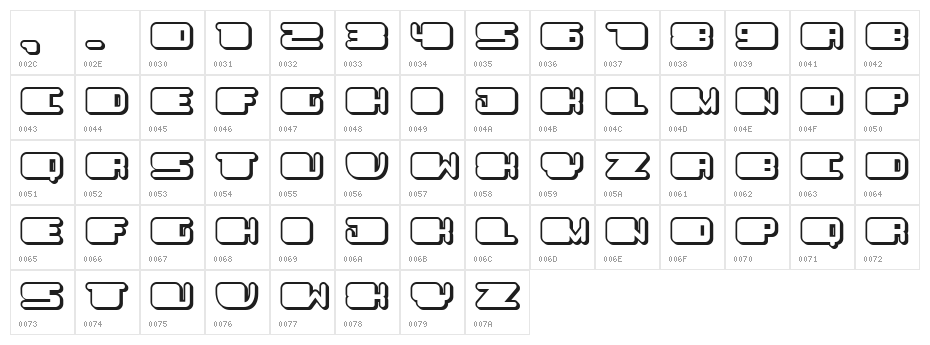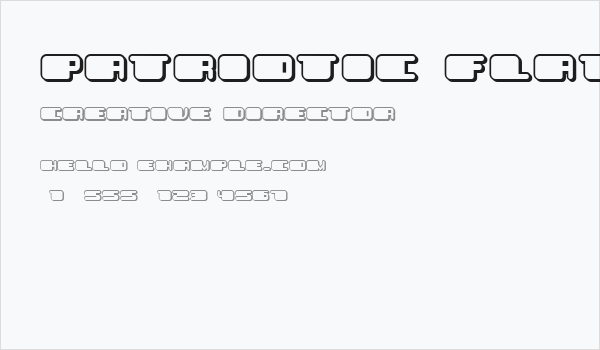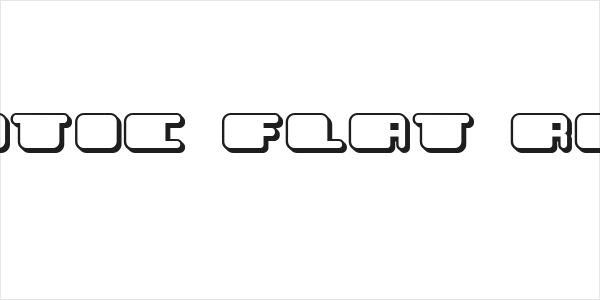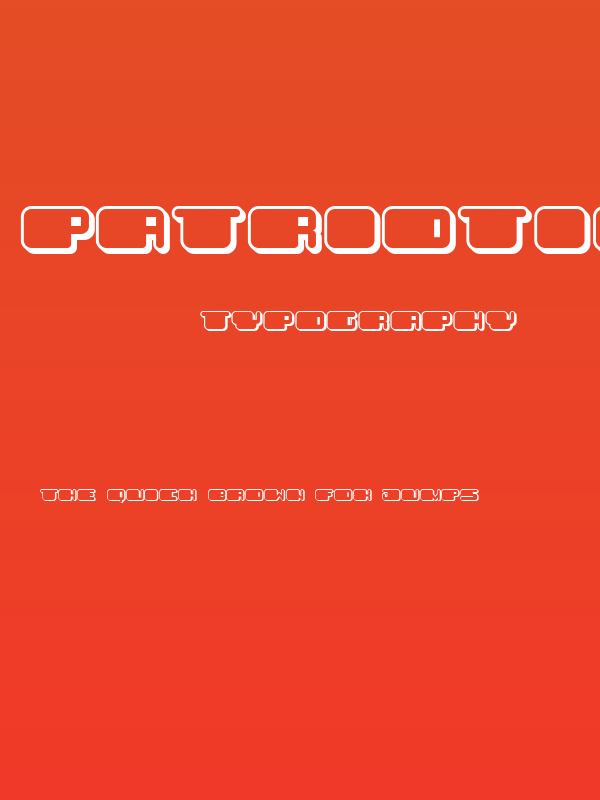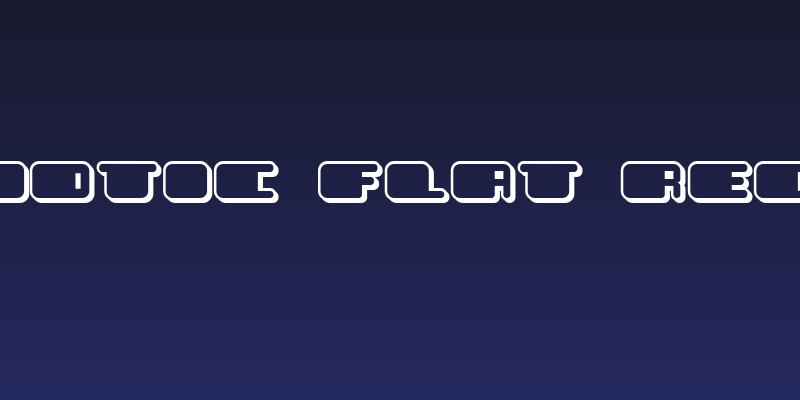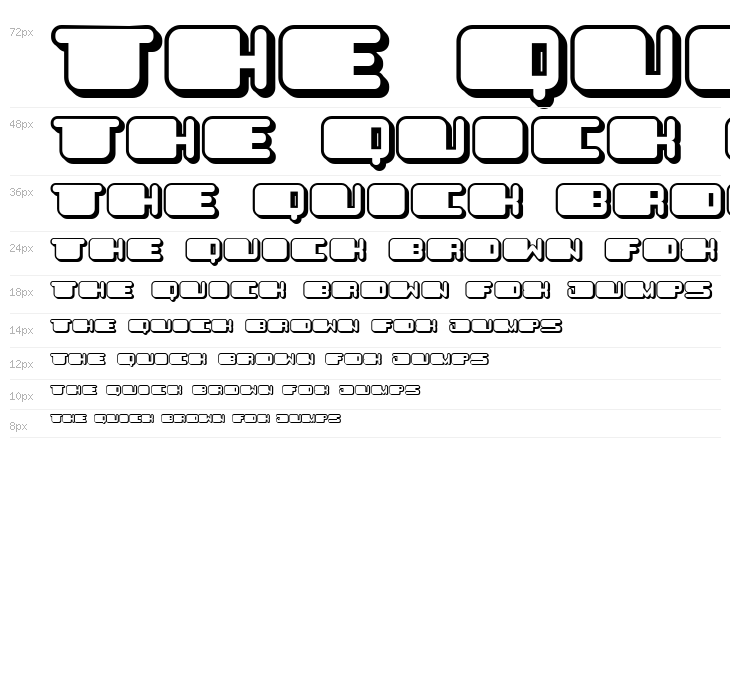
Patriotic Flat Regular Font
Patriotic Flat Regular Description
This font features a bold, geometric design with a distinct outline style. Each character is enclosed within a rounded rectangular shape, giving it a modern and futuristic appearance. The uppercase and lowercase letters maintain a consistent height, contributing to a uniform look. The numbers and special characters follow the same design principles, ensuring cohesion across all glyphs. The font's unique style makes it stand out, ideal for projects that require a strong visual impact.
Proposed ProjectsIdeal for branding, posters, headlines, and digital media where a modern and impactful look is desired.